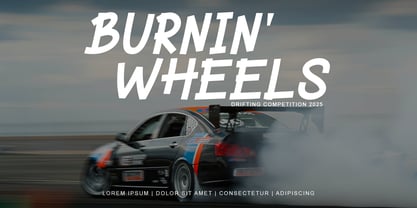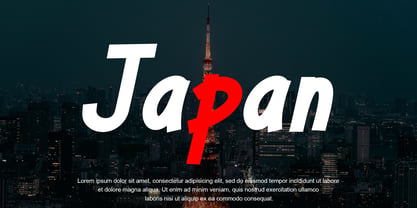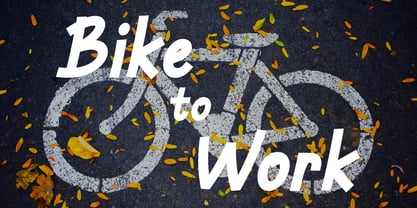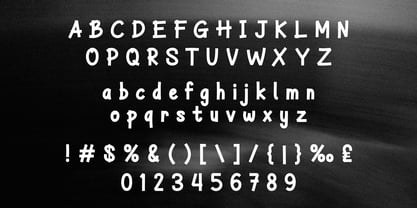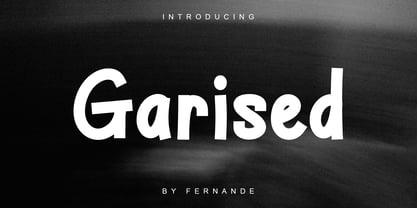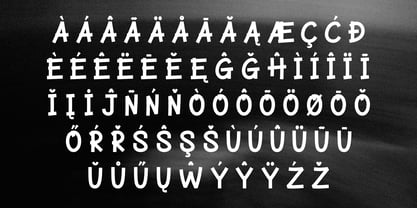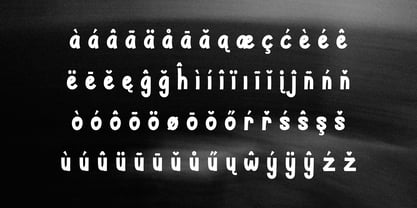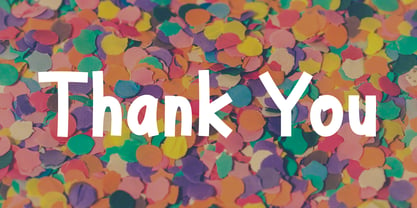
Garised
by Fernande
The Garised Font Family was designed by Angga Fernandi and published by Fernande. Garised contains 2 styles and family package options. More about this family
Introducing Garised Font — a bold and expressive handwritten display typeface inspired by raw sketch strokes and urban artistic energy. Featuring rough textures, dynamic lines, and an organic flow, it captures the essence of spontaneous creativity and modern street-style aesthetics. Perfect for posters, branding, album covers, apparel, social media graphics, and eye-catching headlines, this font delivers a strong visual impact while maintaining a unique handcrafted feel. Its edgy yet artistic character makes it ideal for designers who want to stand out and bring personality into their work. Multilingual support included, covering a wide range of Latin-based languages to ensure versatility across global projects.
Designers: Angga Fernandi
Current Foundry: Fernande